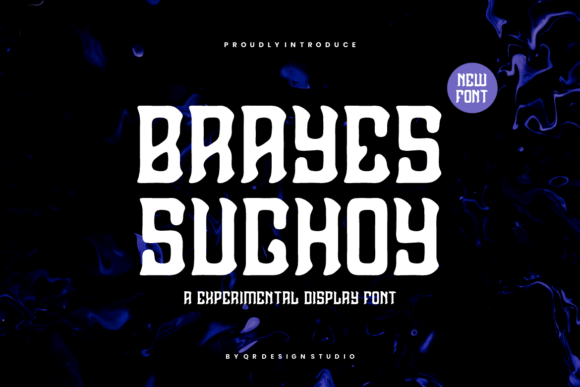
Brayes Sughoy Font: Elevate Your Designs with a Bold and Authentic Display Font
In the world of typography, a font can make or break a design. For designers and crafters looking for a bold and authentic display font to take their projects to the next level, Brayes Sughoy is an exceptional choice. This versatile font is perfect for a wide range of applications, from logos and sports branding to advertising and more. In this article, we’ll explore the features and benefits of Brayes Sughoy Font and why it’s a must-have for any designer or crafter looking to elevate their designs.
What is Brayes Sughoy Font?
Brayes Sughoy is a bold and authentic display font designed to make a statement. Its unique and eye-catching design makes it perfect for headlines, titles, and short text passages. The font’s bold and sturdy structure ensures that it remains legible even at large sizes, making it ideal for signage, posters, and other display materials.
Key Features of Brayes Sughoy Font
- Bold and Authentic Design: Brayes Sughoy boasts a bold and authentic design that is sure to grab attention.
- Versatile: The font is suitable for a wide range of applications, from logos and branding to advertising and more.
- Highly Legible: Despite its bold design, Brayes Sughoy remains highly legible even at large sizes.
Why Choose Brayes Sughoy Font?
So, why should you choose Brayes Sughoy Font for your next design project? Here are just a few reasons:
- Stand Out from the Crowd: With Brayes Sughoy, you can create designs that stand out from the crowd and grab attention.
- Professional Look and Feel: The font’s bold and authentic design gives your designs a professional look and feel.
- Flexibility: Brayes Sughoy is suitable for a wide range of applications, making it a versatile addition to your font library.
- Easy to Pair with Other Fonts: The font pairs well with a variety of other fonts, making it easy to create harmonious and visually appealing designs.
Use Cases for Brayes Sughoy Font
Brayes Sughoy Font is suitable for a wide range of applications, including:
- Logo Design: Create a bold and memorable logo with Brayes Sughoy.
- Sports Branding: The font’s bold and authentic design makes it perfect for sports branding and team logos.
- Advertising: Use Brayes Sughoy to create eye-catching headlines and titles for your advertising campaigns.
- Signage: The font’s bold and sturdy structure makes it ideal for signage and display materials.
In conclusion, Brayes Sughoy Font is a bold and authentic display font that is perfect for designers and crafters looking to elevate their designs. With its unique and eye-catching design, versatility, and high legibility, Brayes Sughoy is a must-have for any designer or crafter looking to create professional-looking designs that stand out from the crowd. Whether you’re working on a logo, sports branding, advertising, or signage, Brayes Sughoy Font is an exceptional choice.